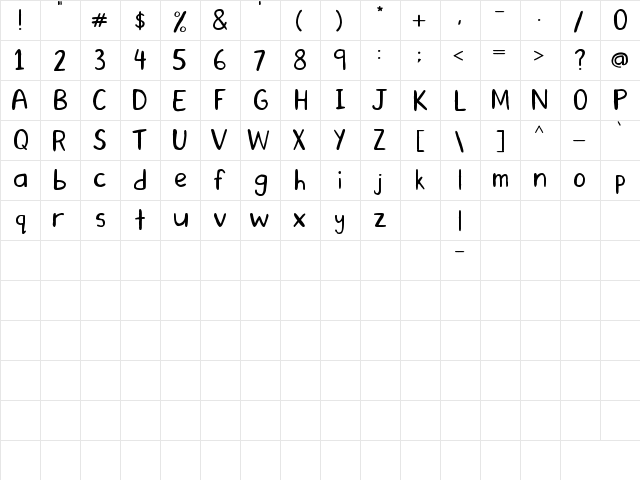
Narlified Regular
Design Context for Narlified Typeface
Narlified takes a measured approach to typography — its balanced proportions and neutral character make it a reliable workhorse for both digital and print work.